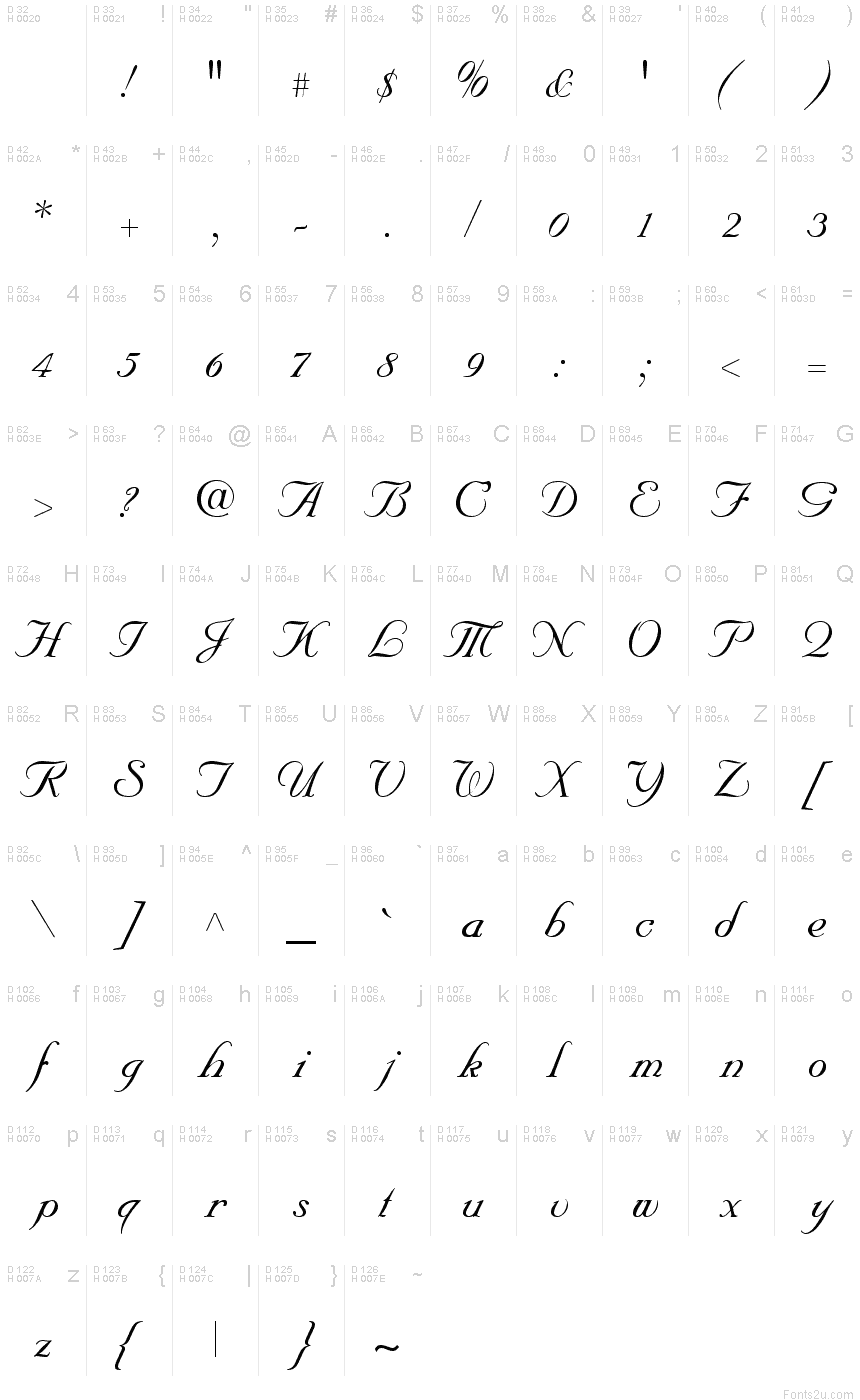
MarriageScript
MarriageScript is a free formal calligraphic script with sweeping curves and pronounced thick-to-thin strokes. Its flowing, right-leaning letters recall traditional penmanship, with long entry strokes and restrained flourishes extending beyond the main forms. The overall impression is elegant and ceremonial rather than casual.
It can establish a refined handwritten signature for wedding stationery, boutique branding, or beauty packaging. The generous curves also suit fashion editorials and event programs, where the lettering can echo ribbon, fabric, or hand-drawn ornamental lines. Wedding invitations remain its most convincing setting, since the graceful movement and fine hairlines match the formality of names, vows, and celebratory details.